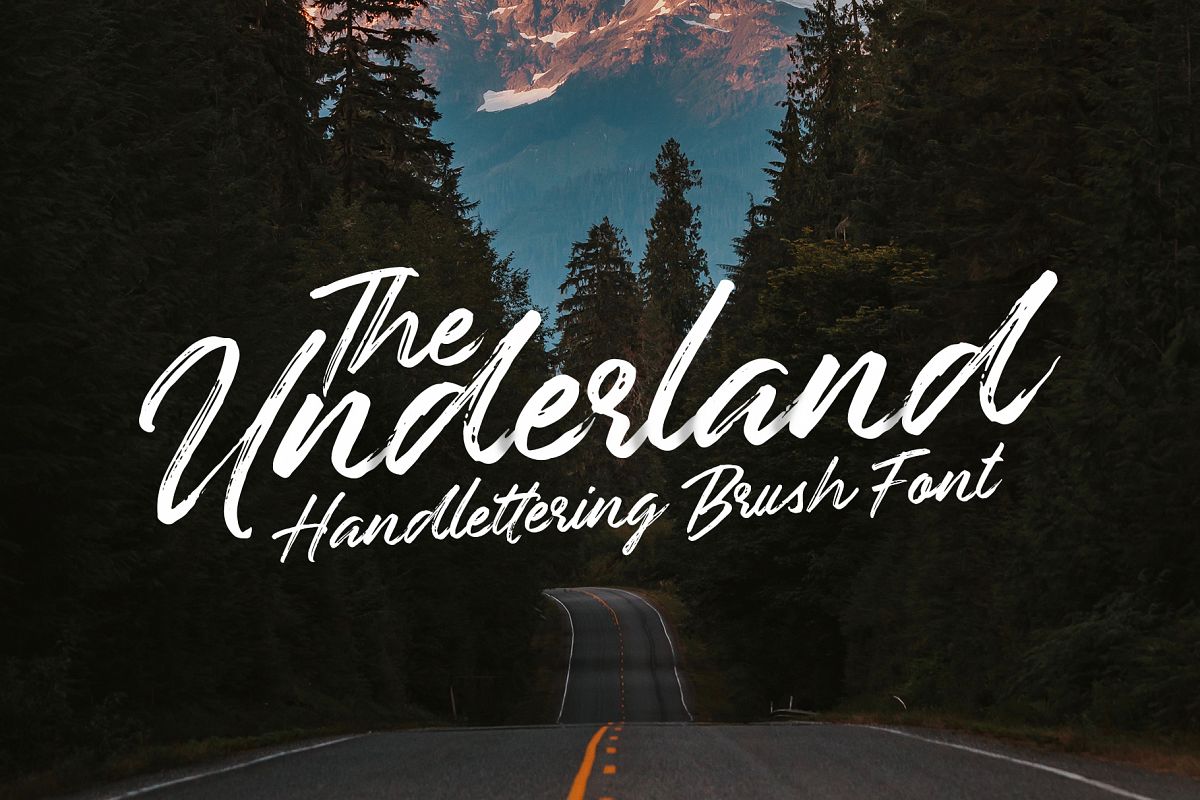
Underland is a rough brush script font with a clear style and dramatic movement this font is great for your next creative project such as logos, printed quotes, invitations, cards, product packaging, headers, Logotype, Letterhead, Poster, Apparel Design, Label, and etc.
Underland comes with 4 styles also with uppercase, lowercase, numerals, punctuations, common ligatures and also additional swash to let you customise your designs.